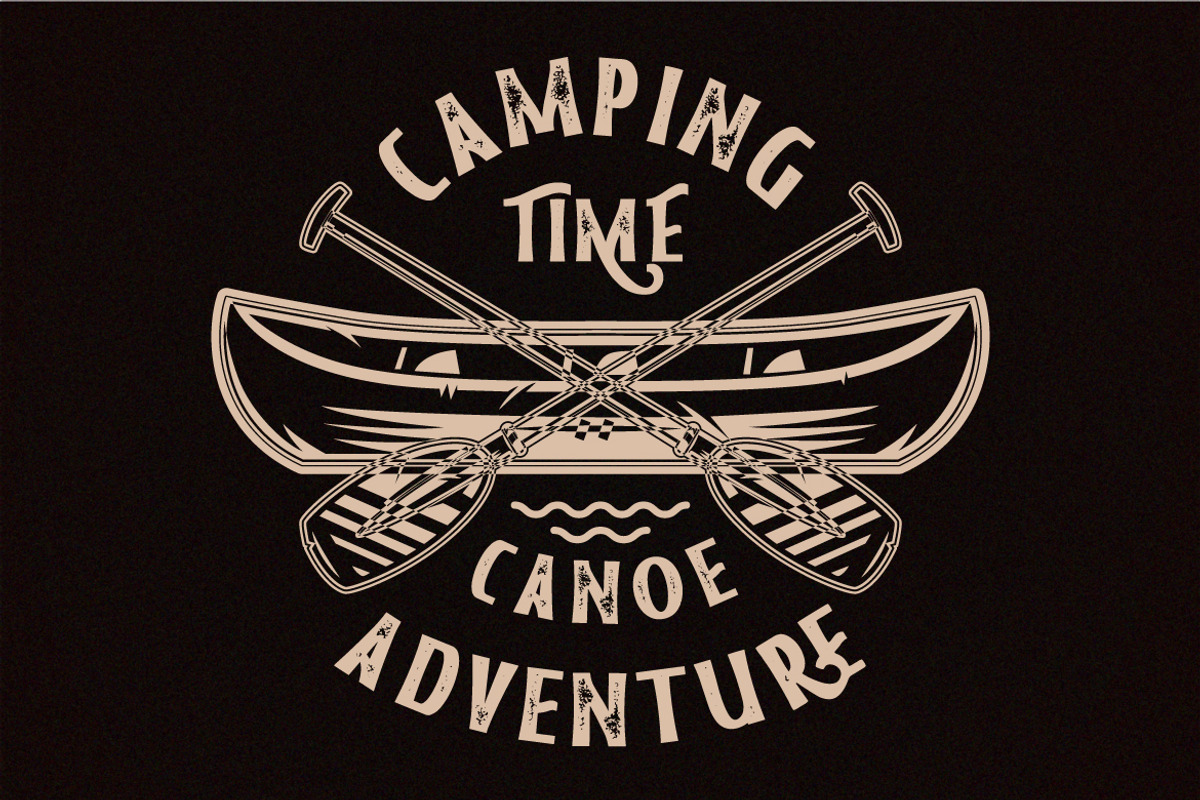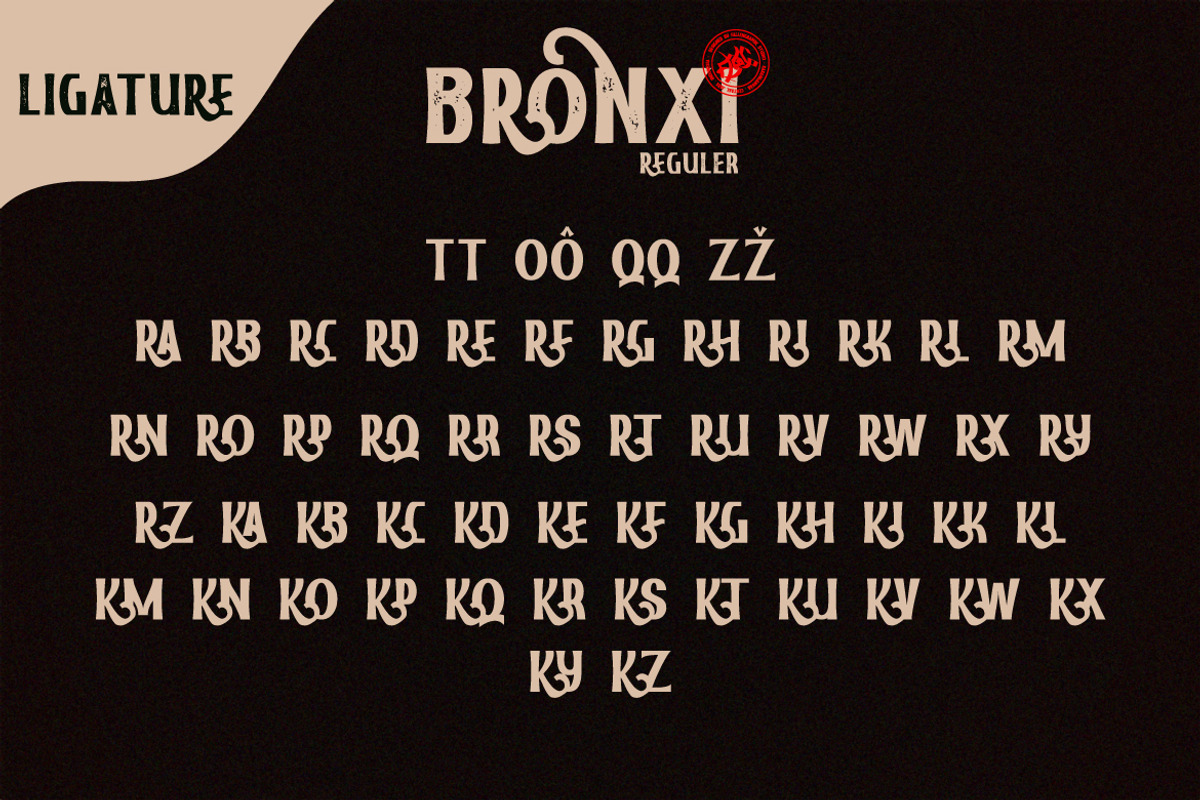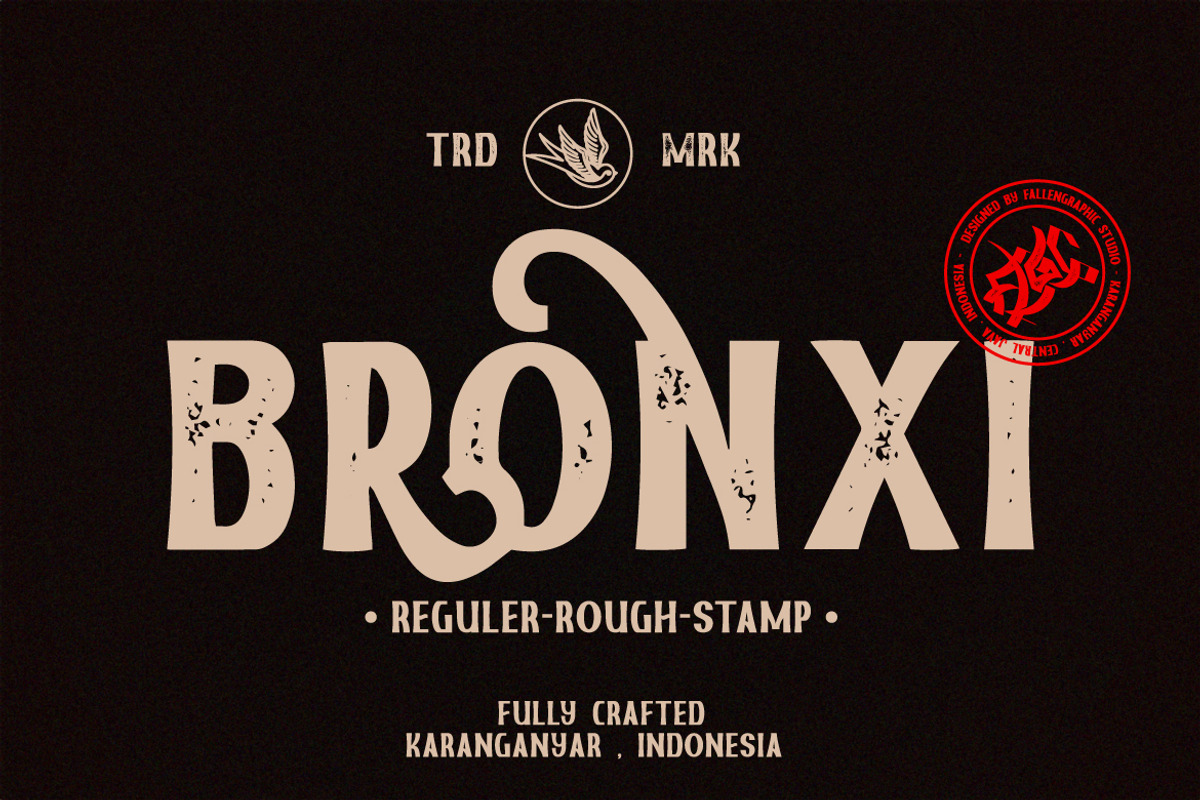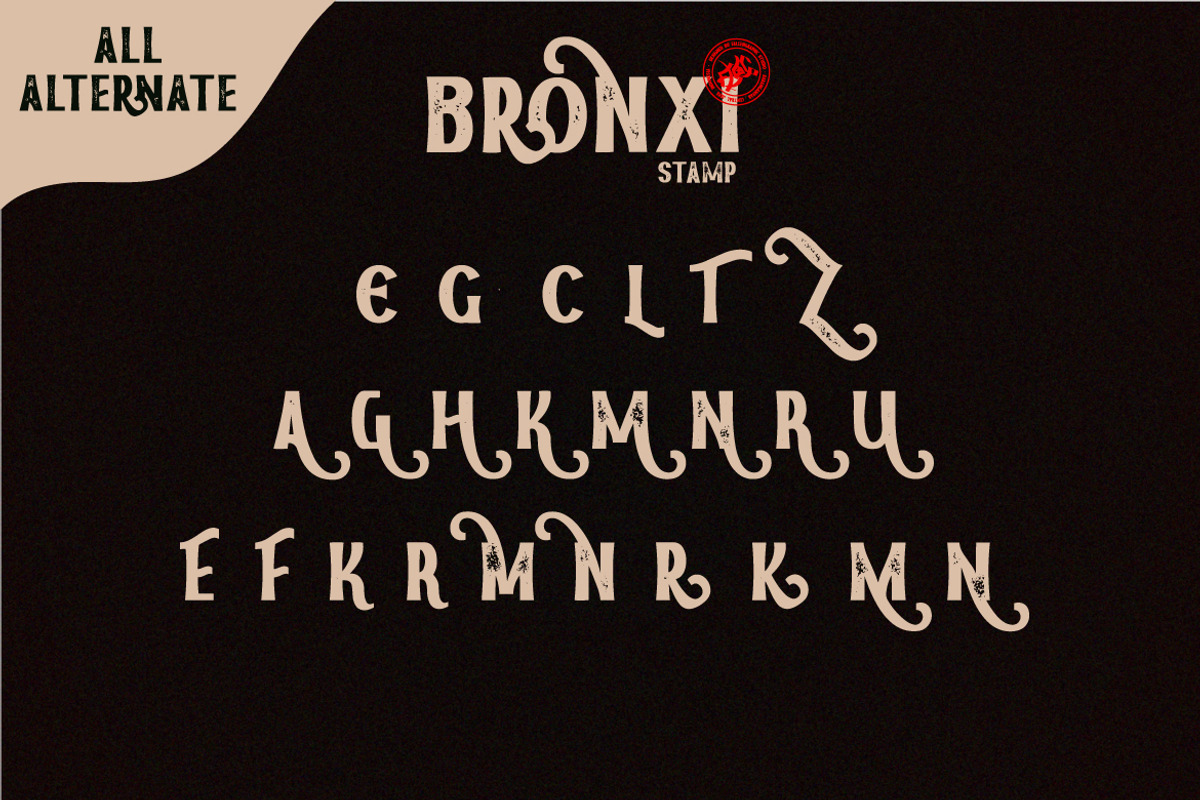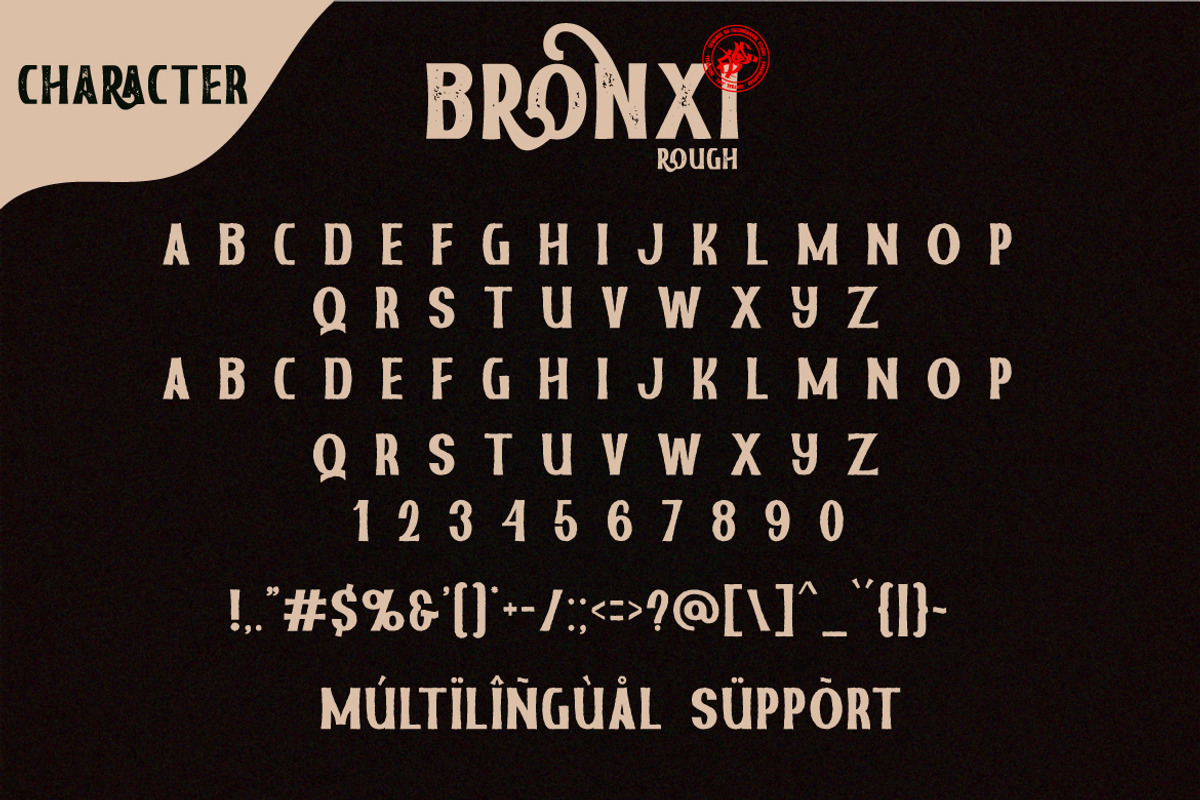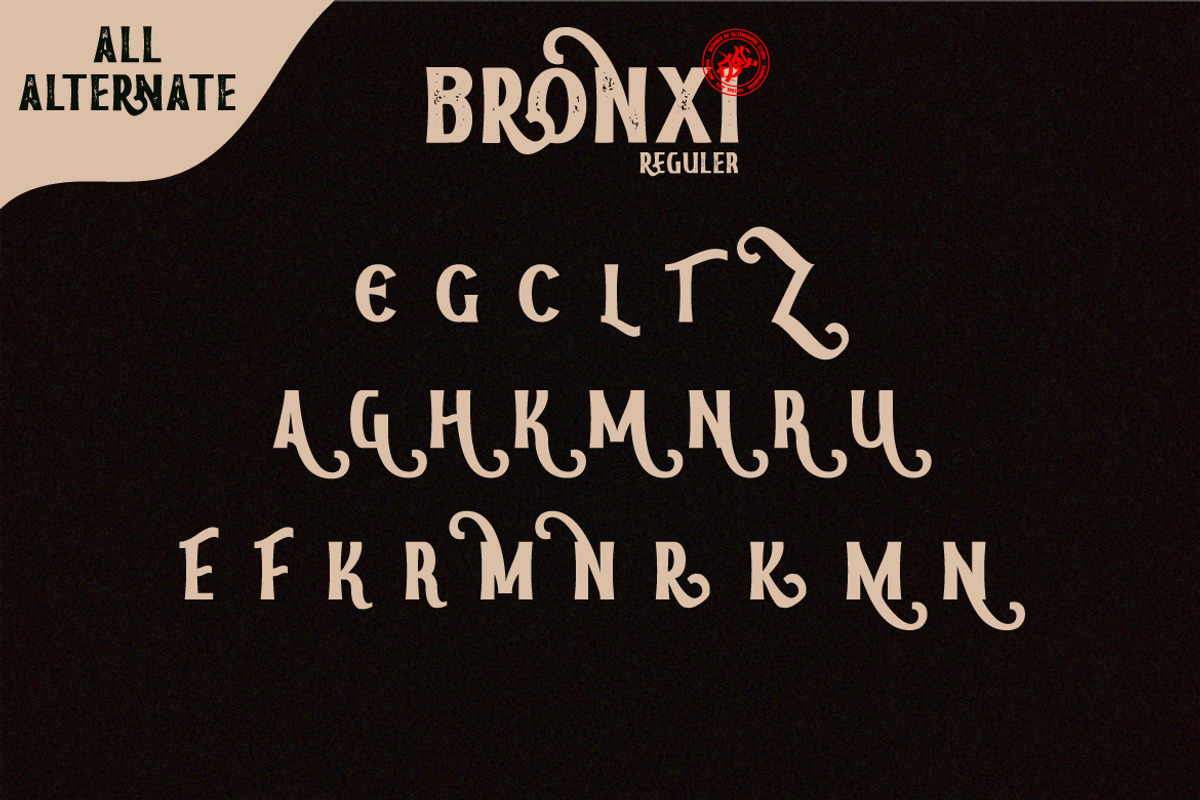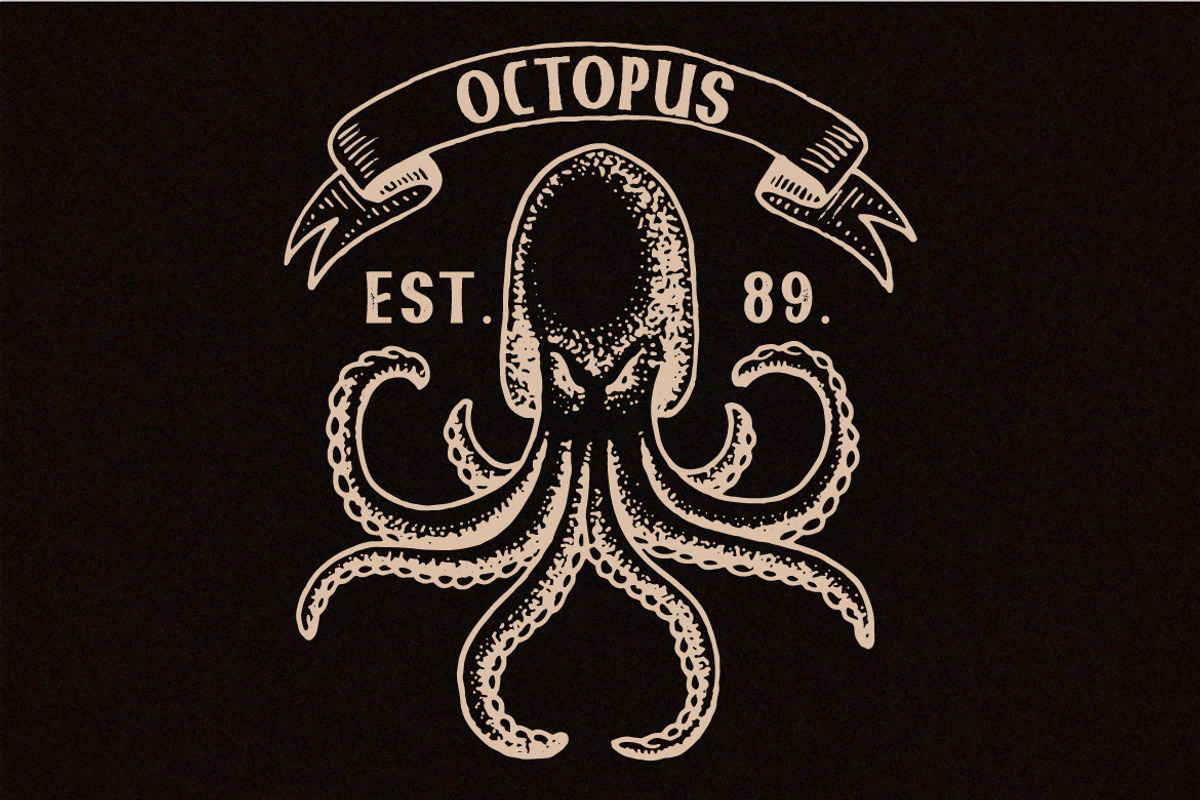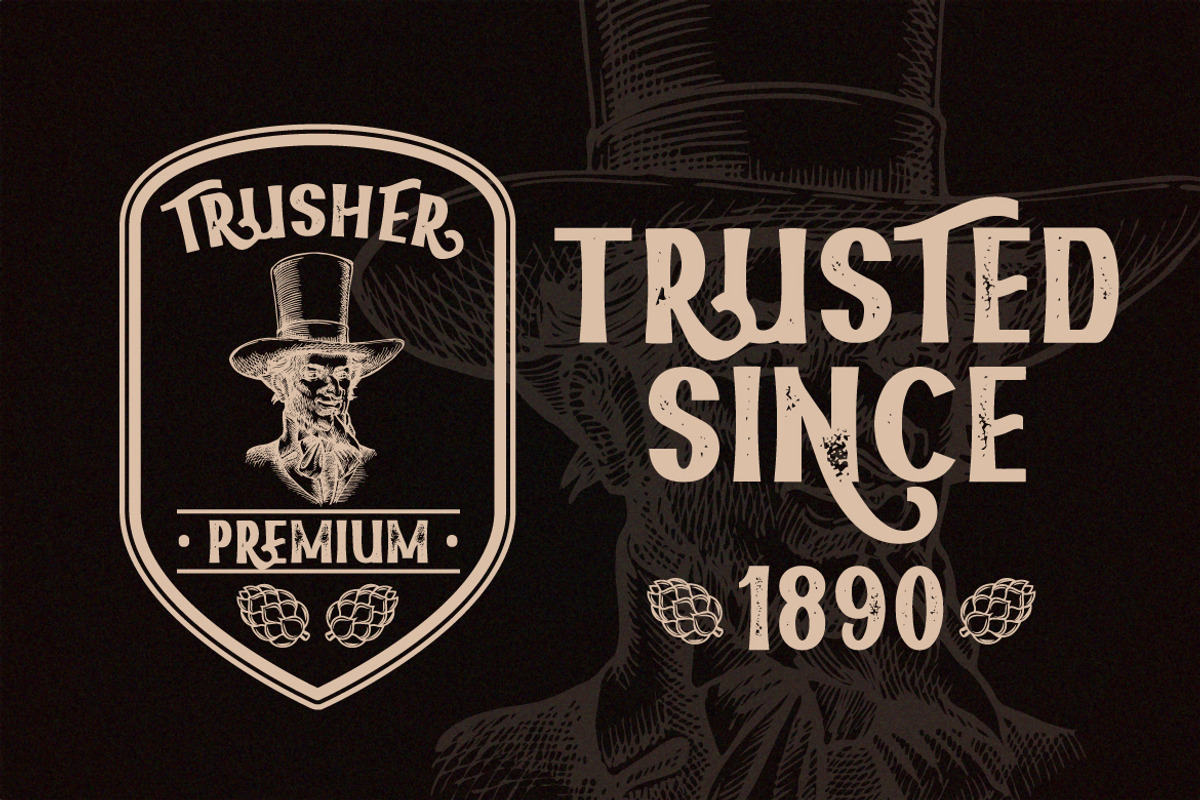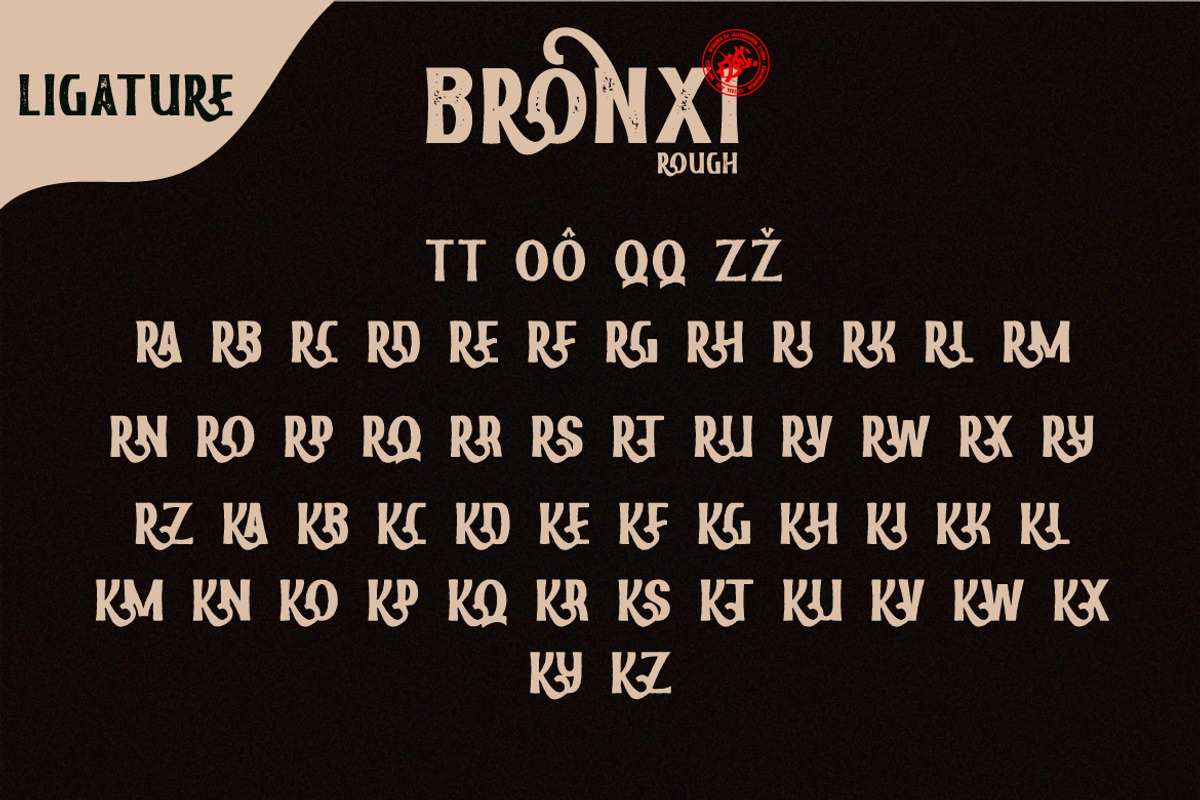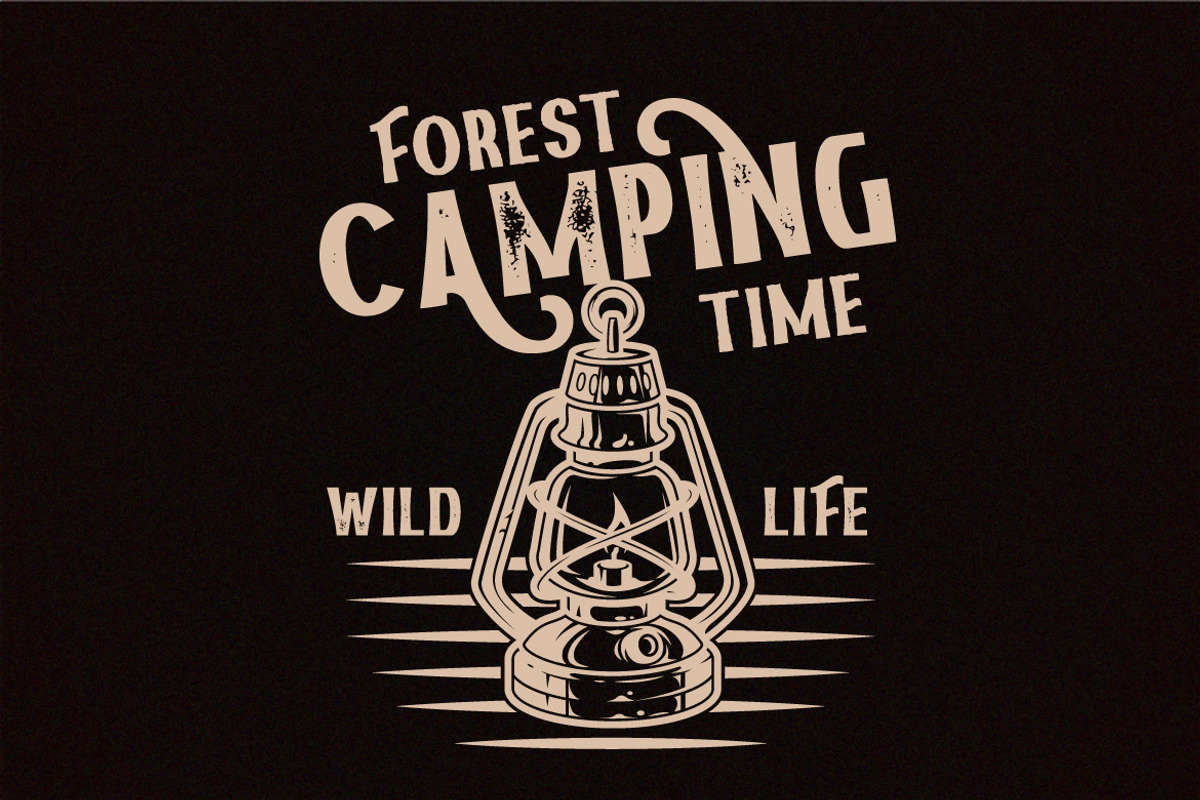
Bronxi - A Vintage Sans Serif Fonts
Introducing Bronxi
Bronxi is a vintage sans serif family including Textured,Rough & Clean versions.
Bronxi is a versatile sans serif typeface that gives a vintage aesthetic. With it’s unique & distinct characteristics it sets itself apart, while also maintaining a strong timeless appeal overall. Textured versions allow Bronxi to be a complete set without the need for 3rd party effects to create a printed look, eliminating a step in the process of finalizing your piece.
- Character Set A-Z
- Numberal
MULTiLINGUAL ACCENT